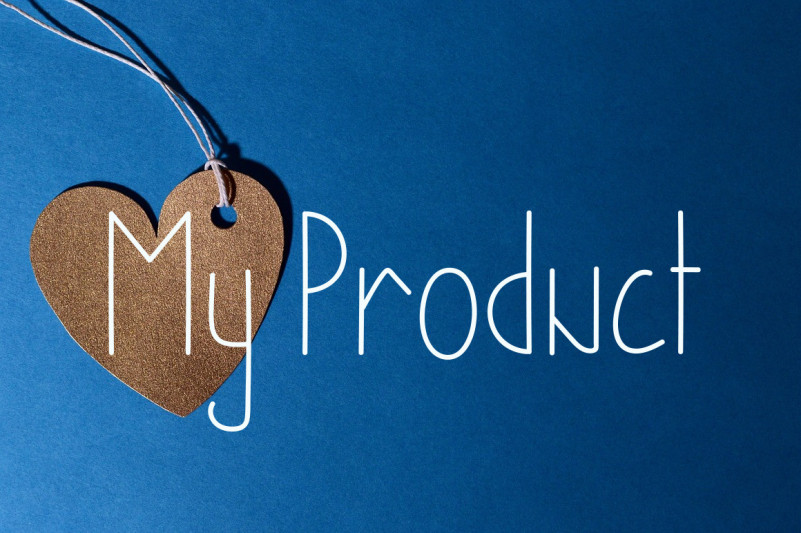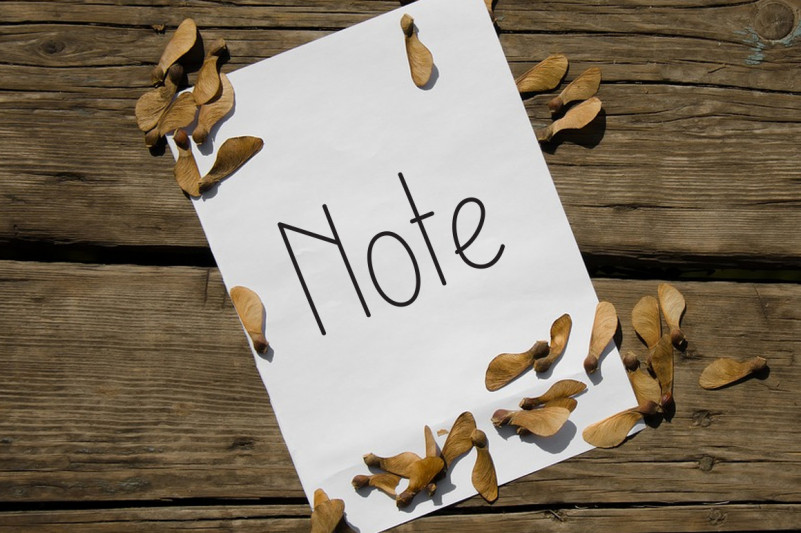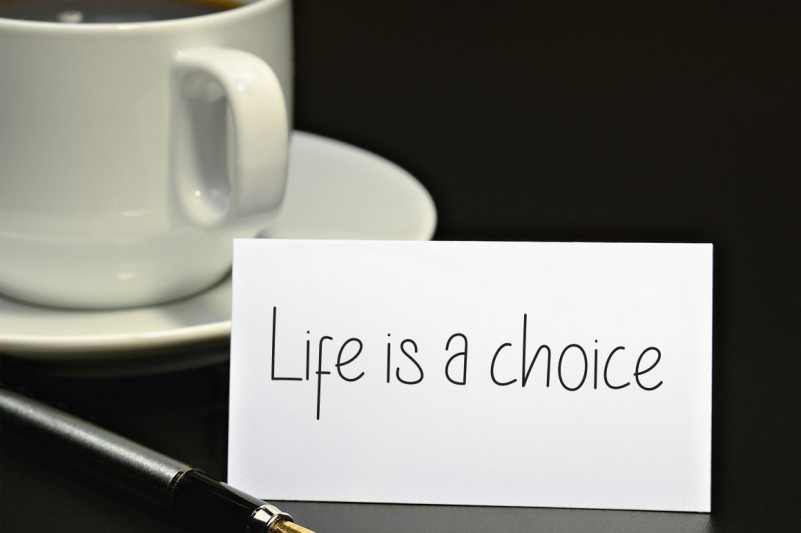
Love Day Font
Love Day Handwritten Font
This is a dainty, thin and adaptable handwritten font. No matter the topic, this font will be an incredibly asset to your fonts’ library, as it has the potential to elevate any creation.
Love Day Handwritten Font is a very talented product for you to use,
Latest letters that can be used for various products, invitations, wall hangings, weddings, and more.